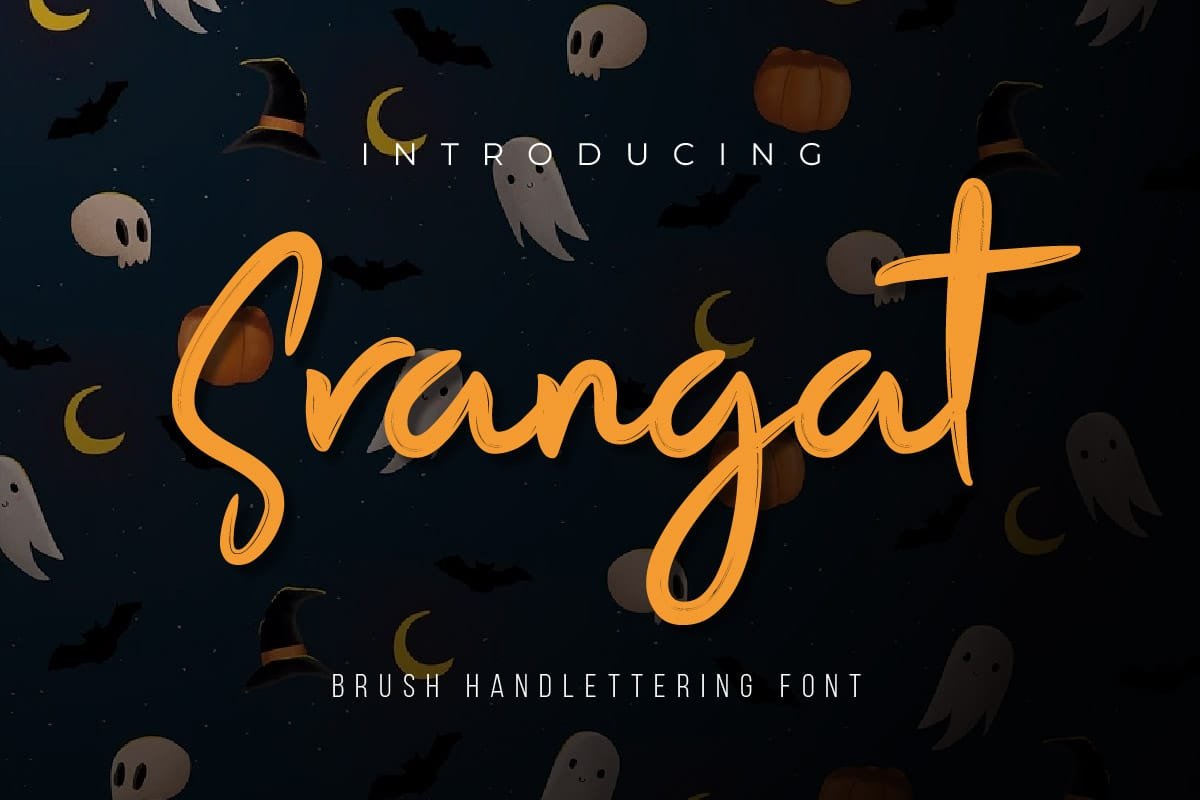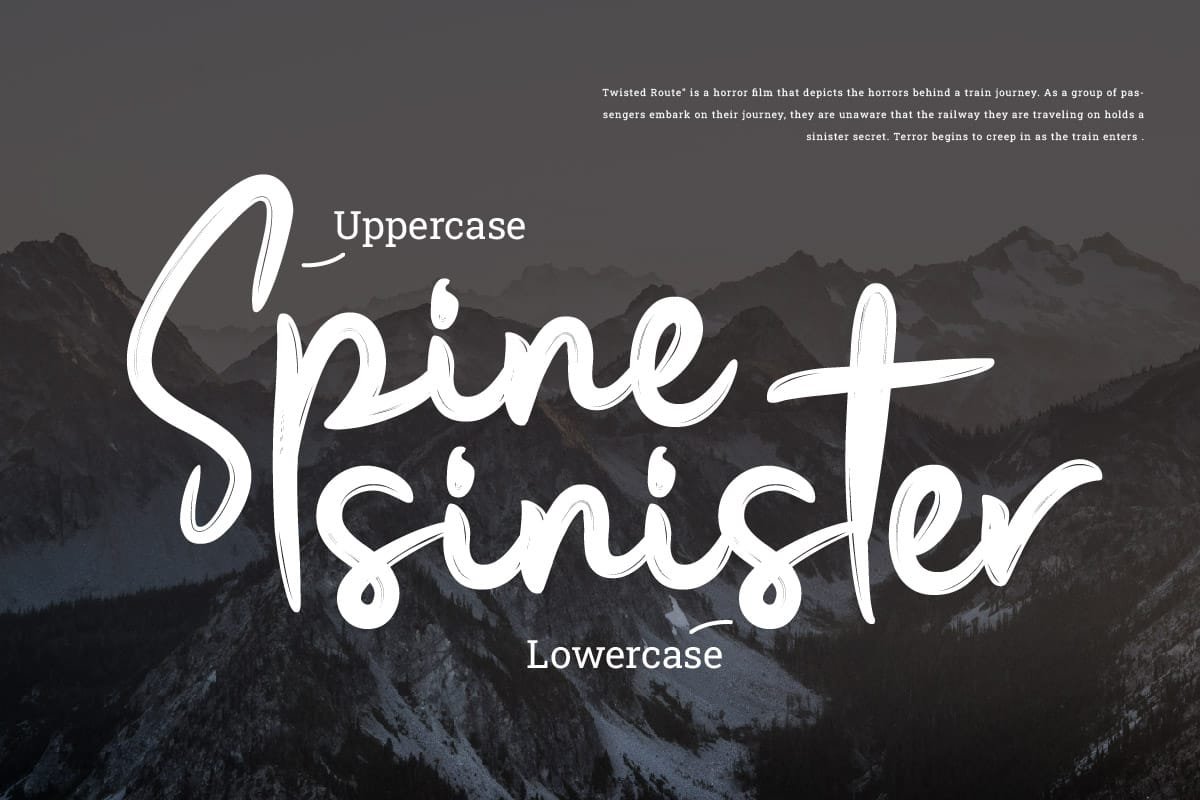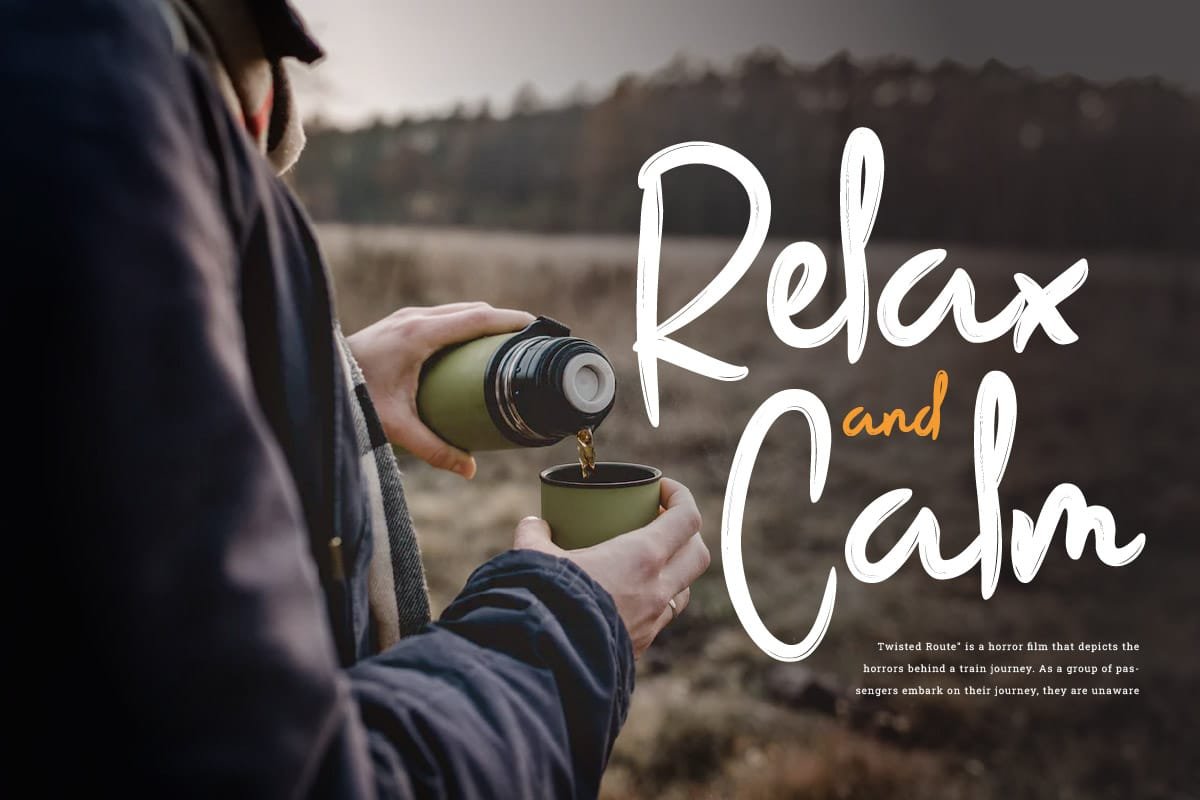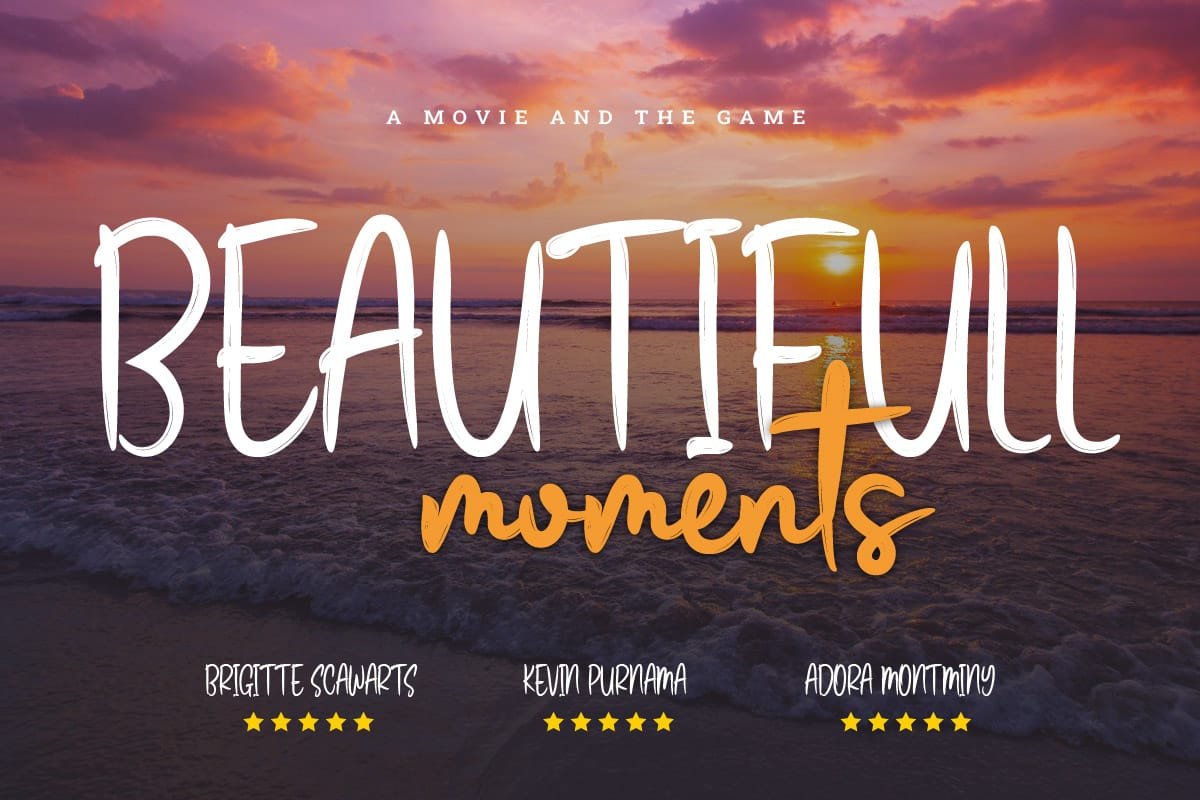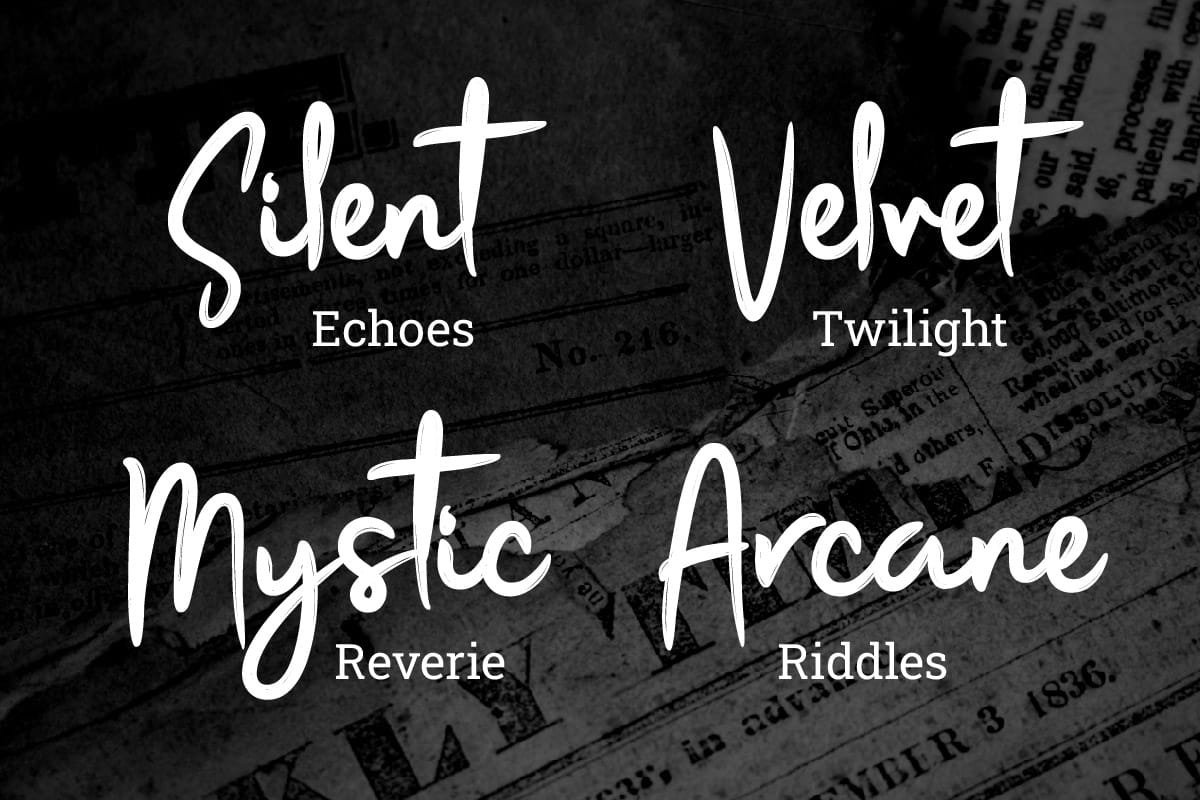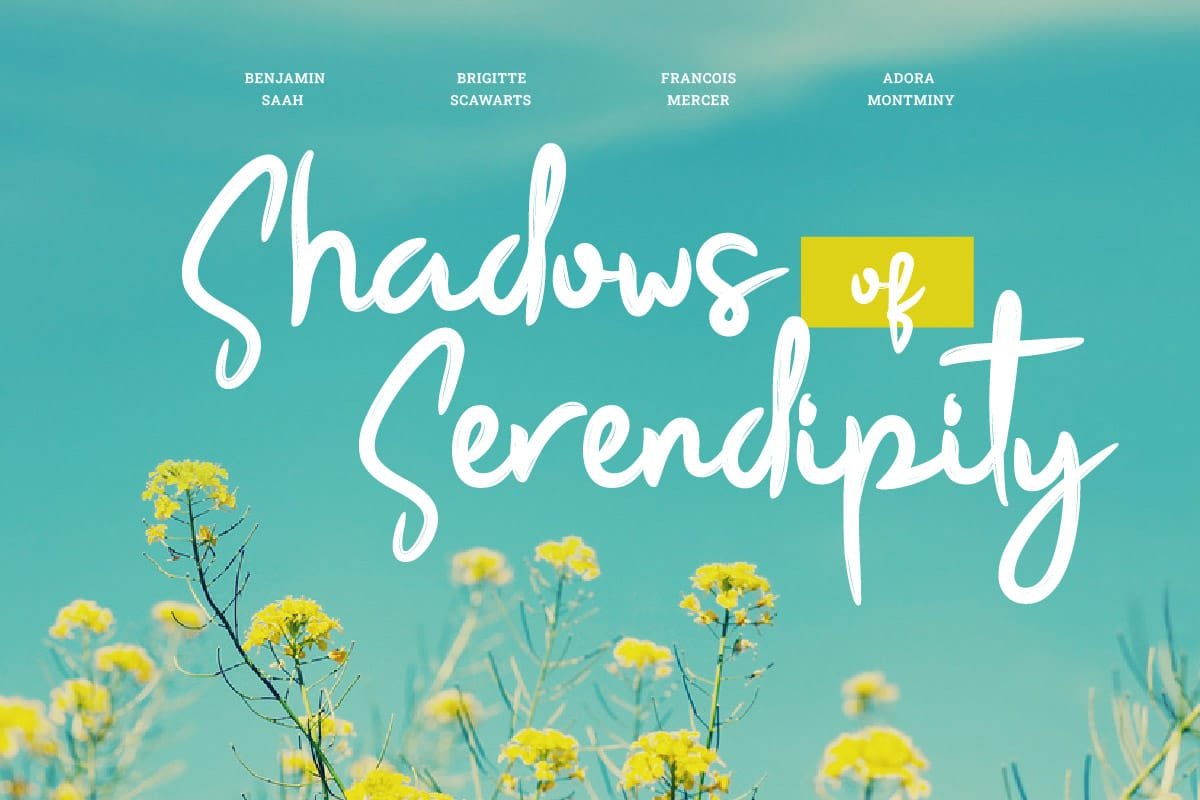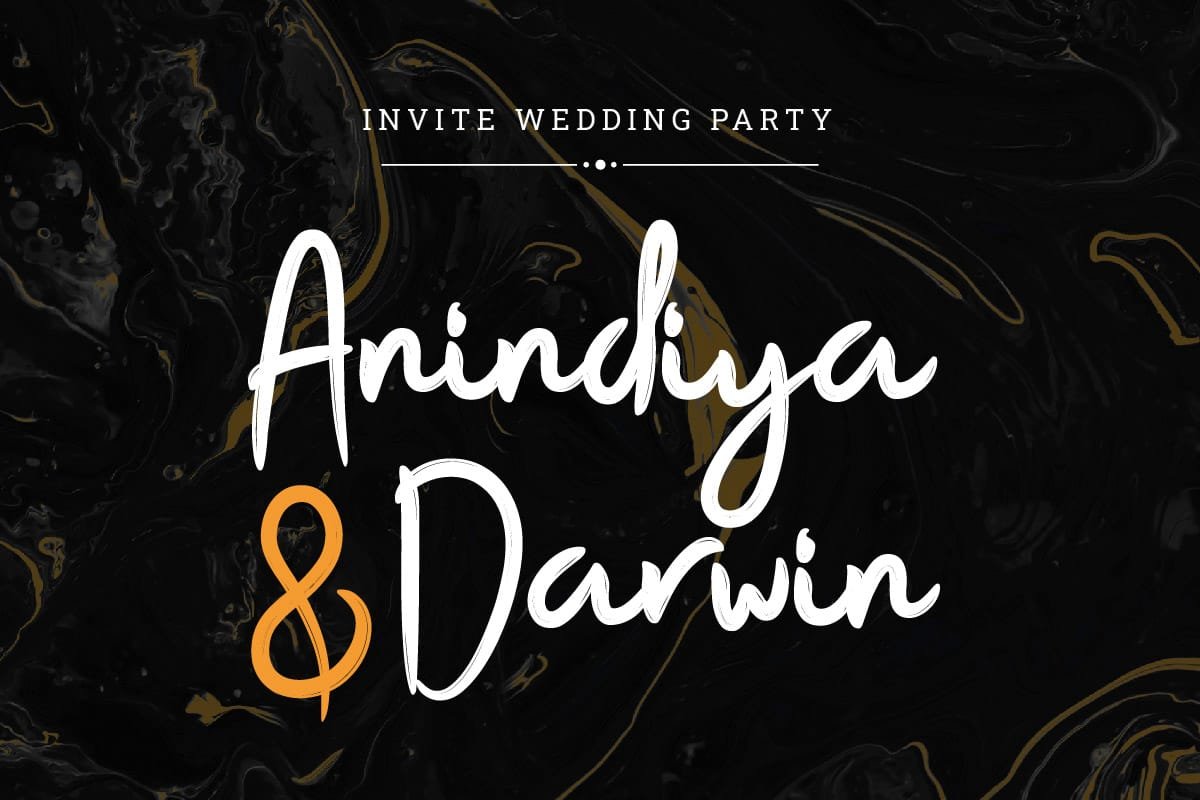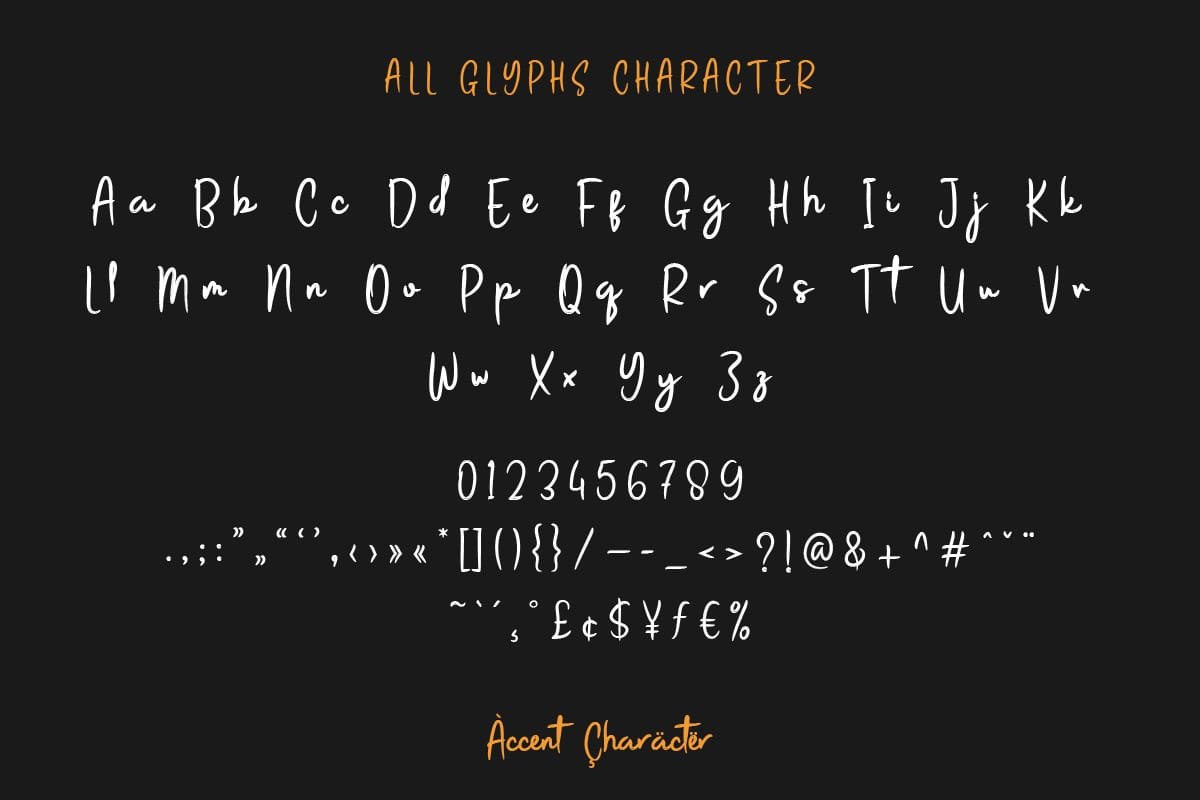
Dive into the vibrant energy of life with Srangat – Brush Handwritten Font. This font captures the lively spirit of excitement and adventure with its dynamic strokes and cheerful design. Ideal for projects that seek to evoke a sense of vibrancy and enthusiasm, Srangat is perfect for designing energetic event posters, colorful market signage, or vibrant social media graphics. With Srangat, every design becomes a celebration of life, spreading joy and positivity wherever it goes. Get ready to immerse yourself in the joyful chaos of life with Srangat – the font that’s always ready for an adventure!